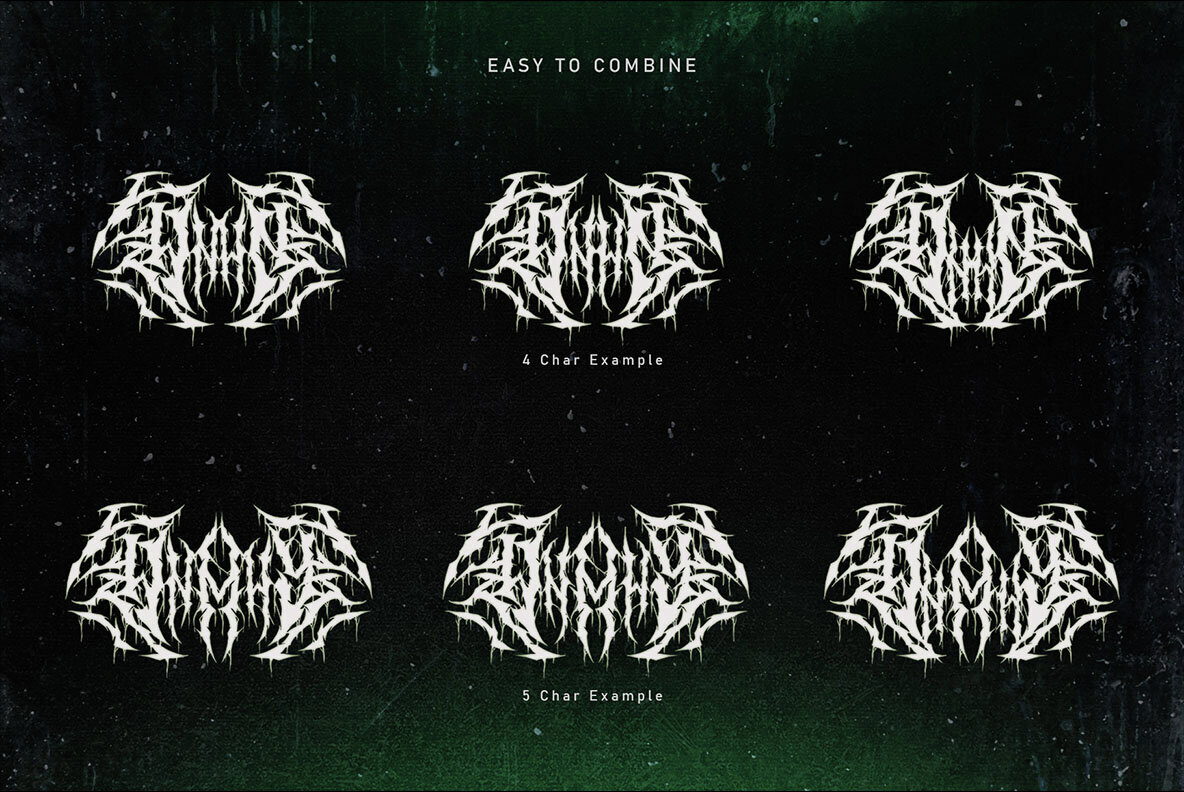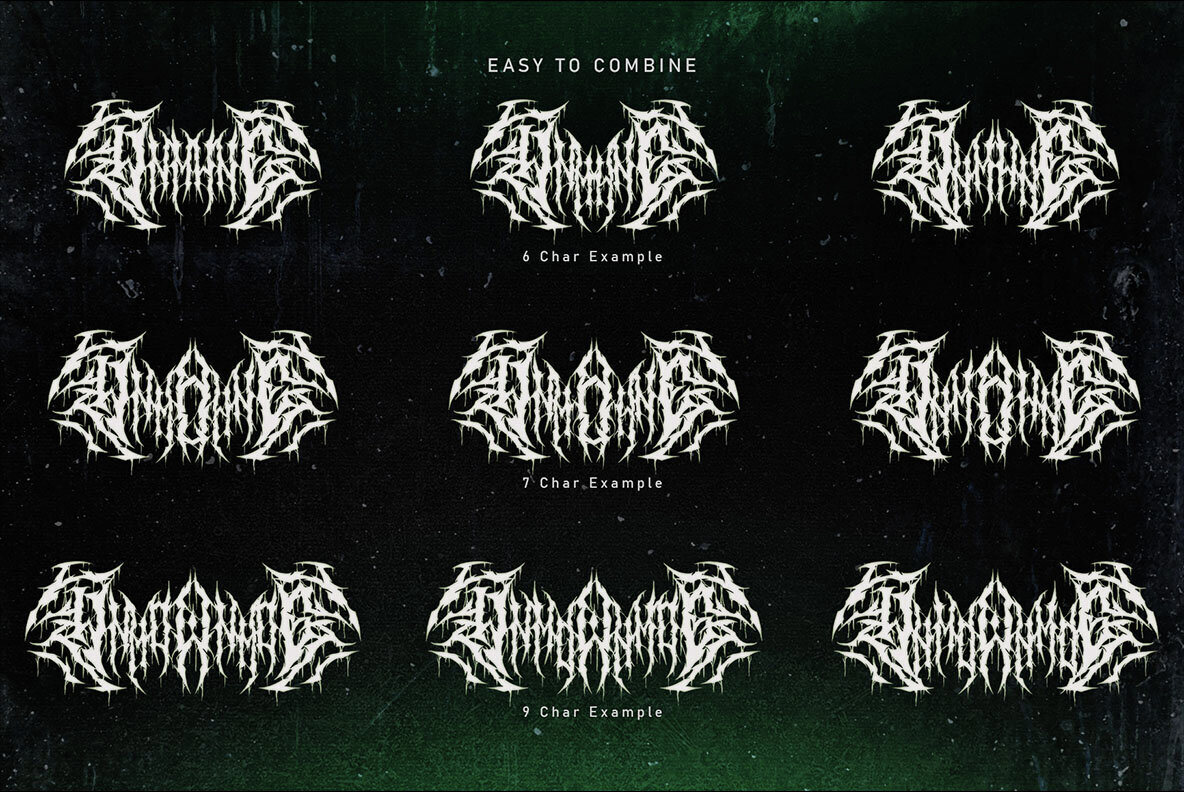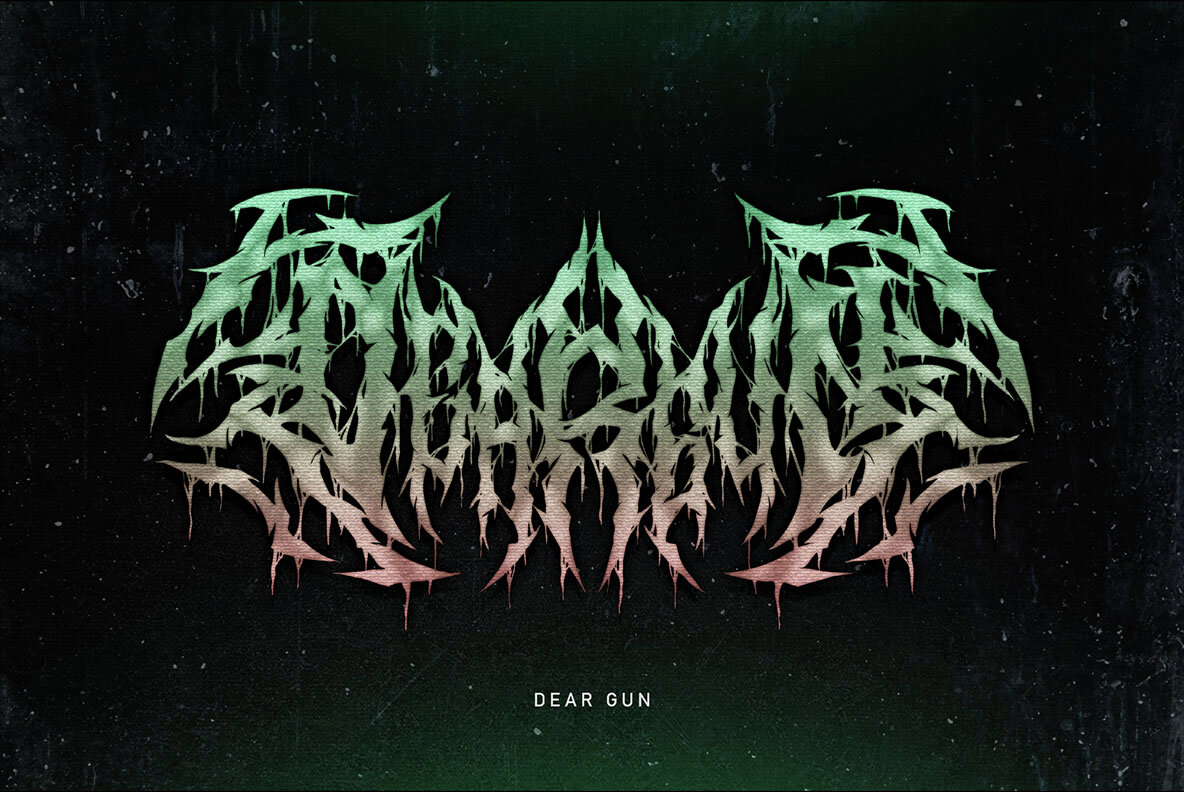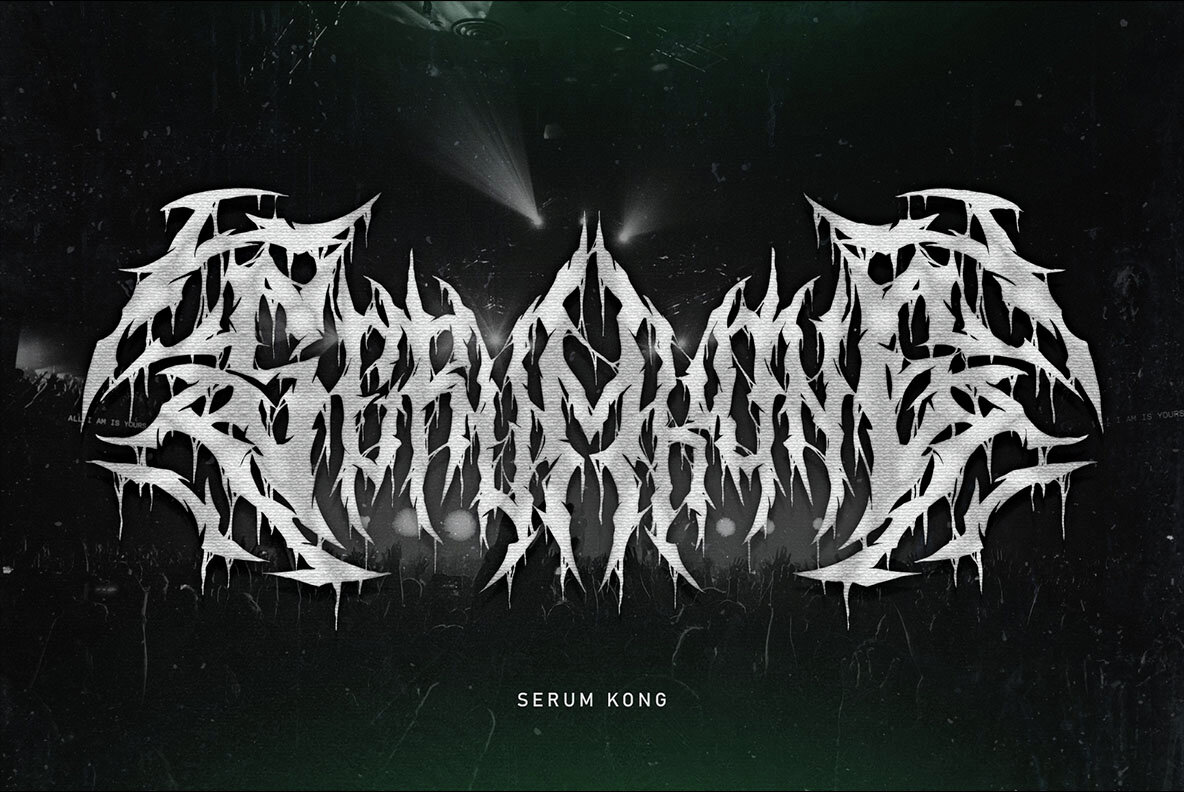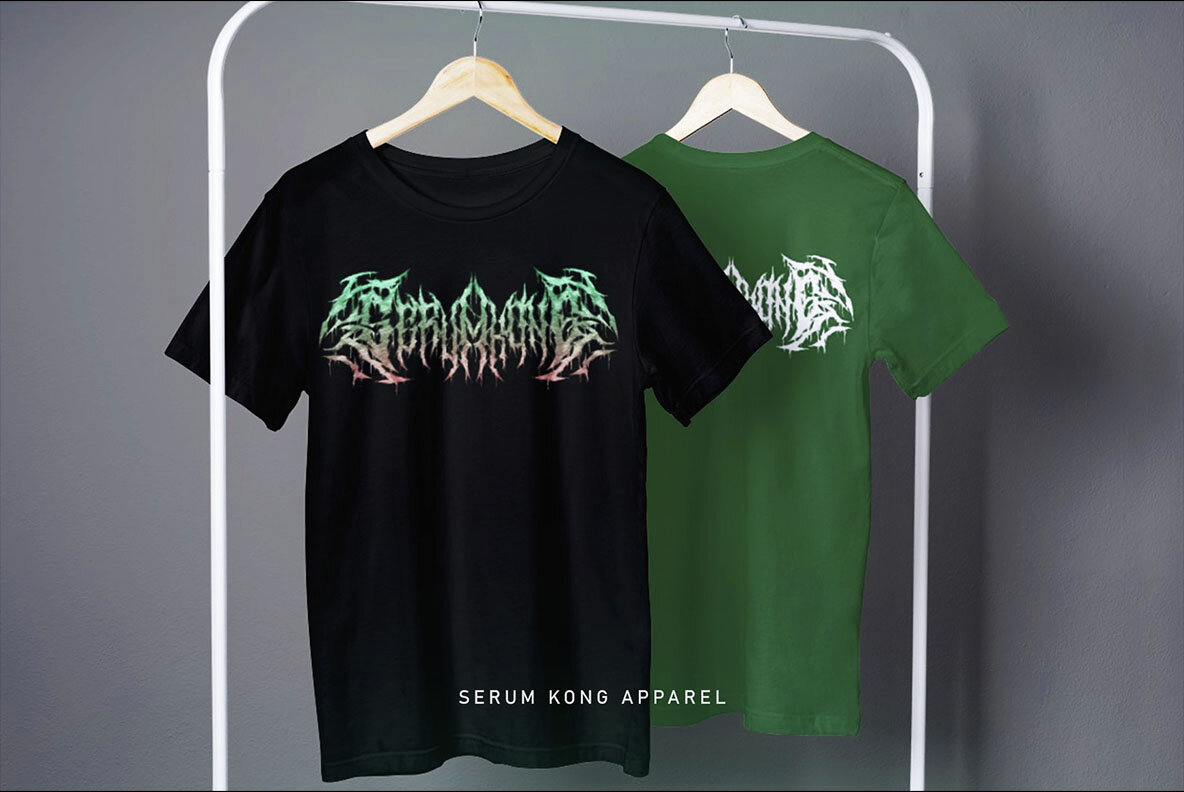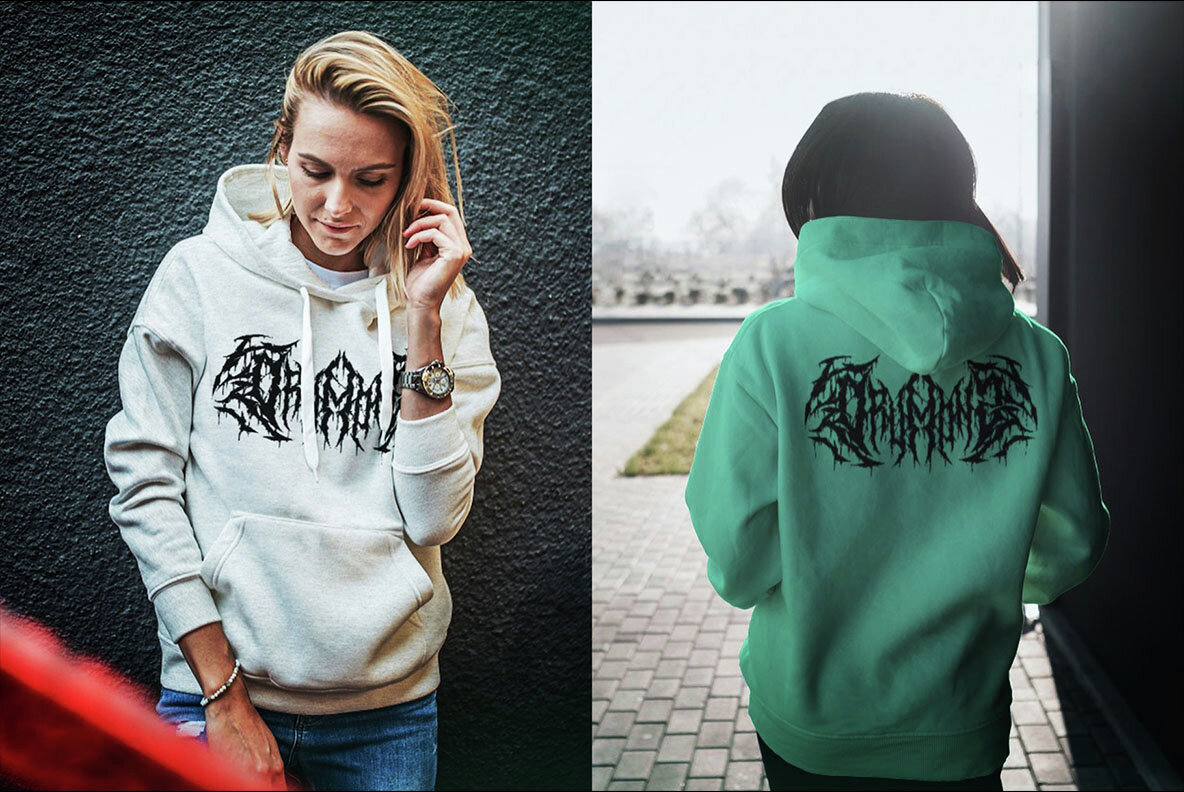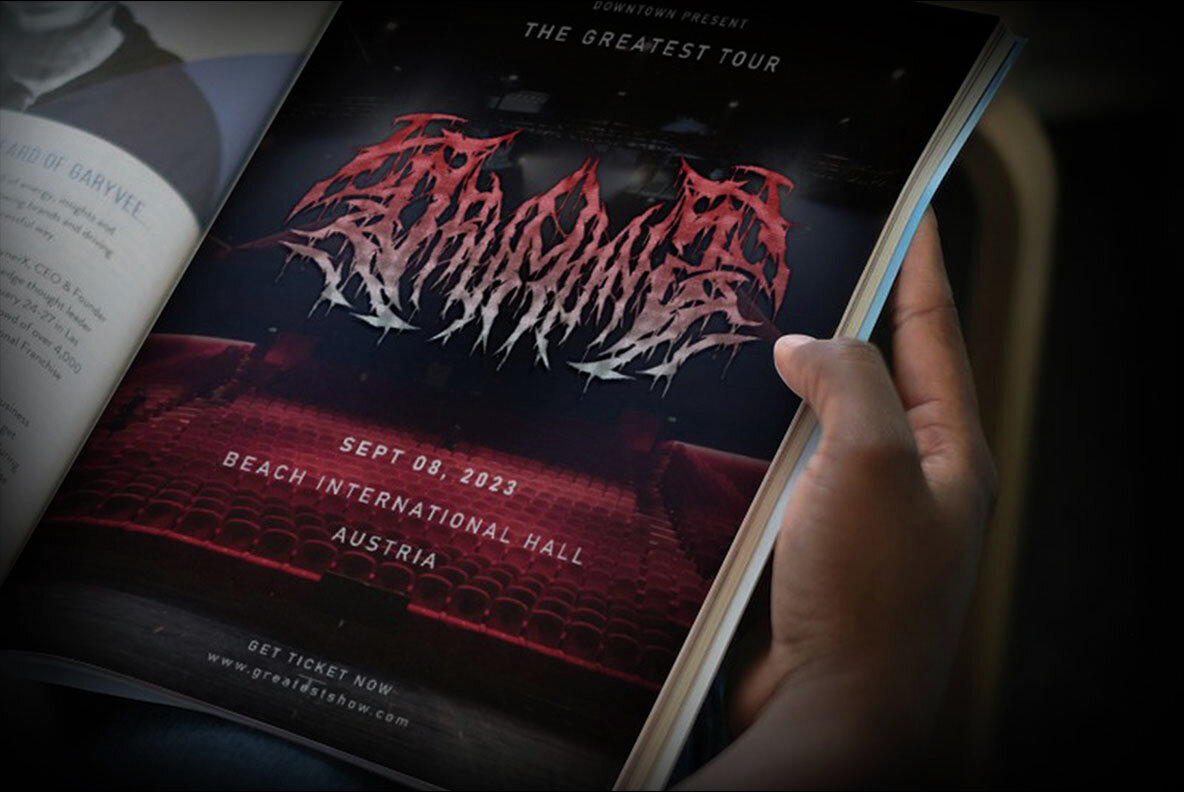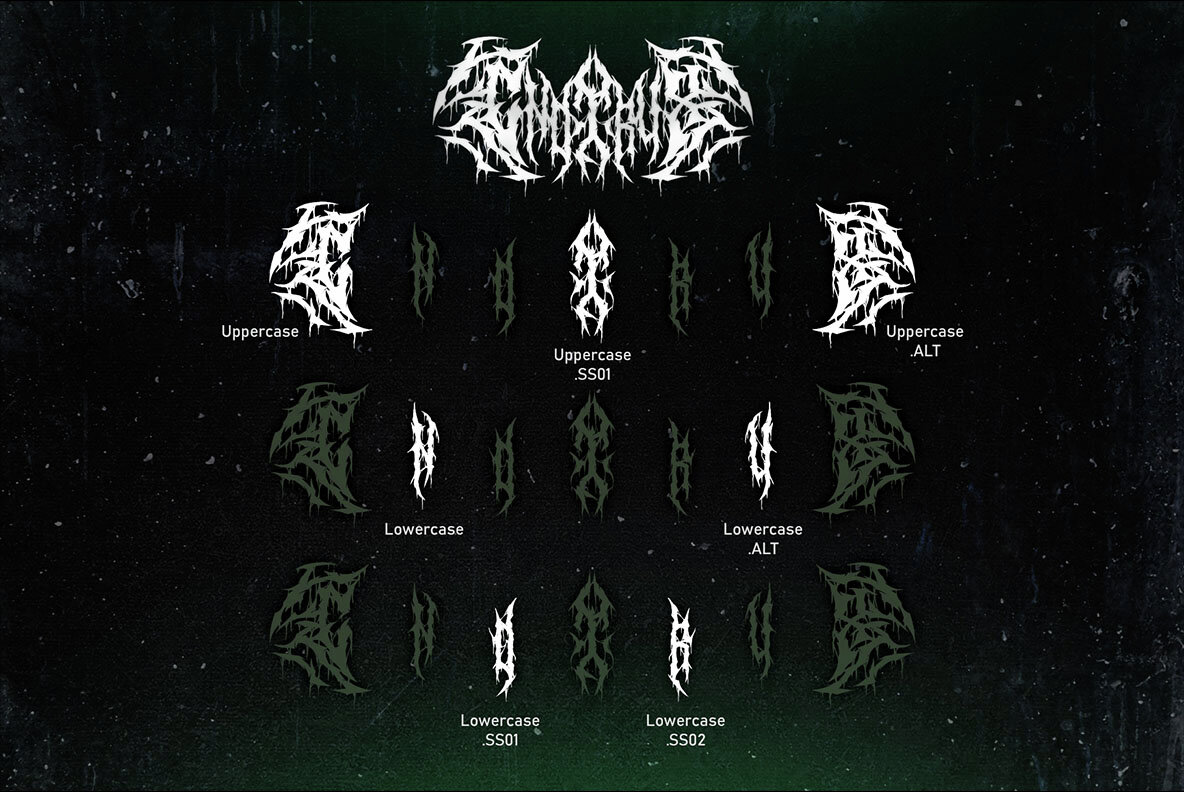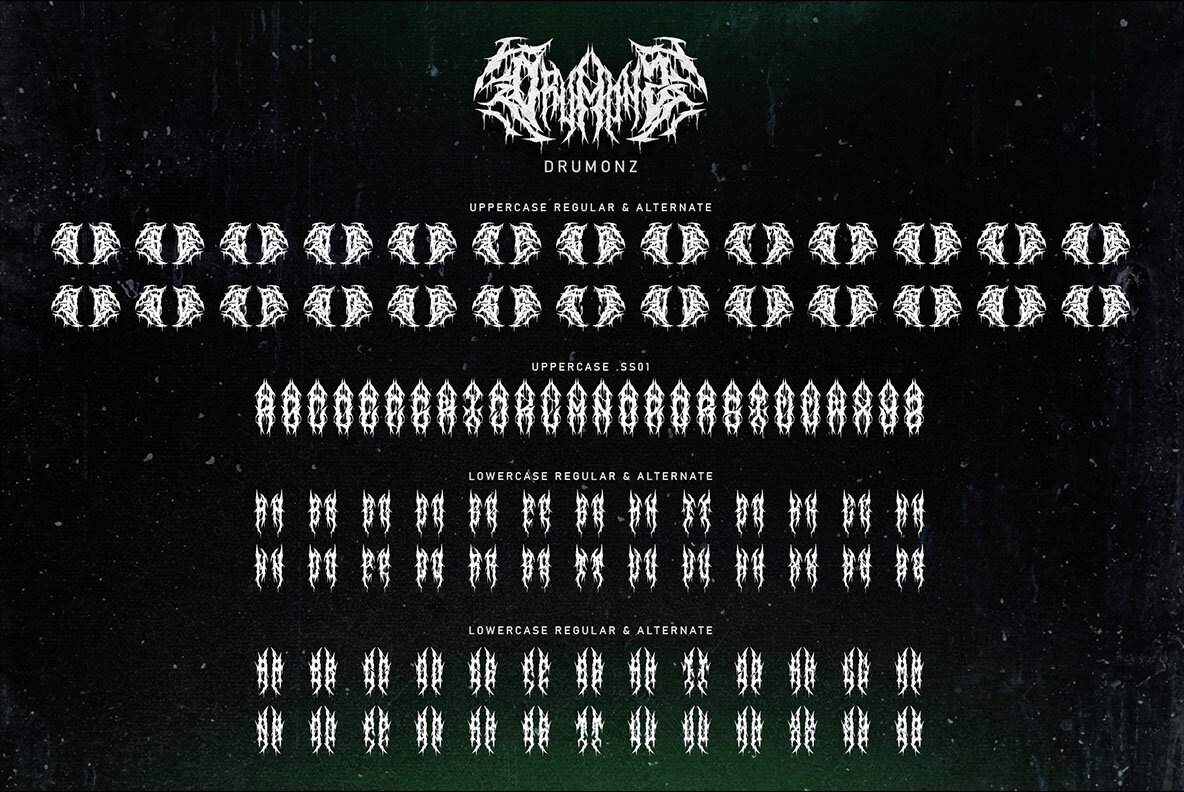
Drumonz Font
Drumonz Regular
Drumonz is a death metal font made with a touch of darkness, featuring a heavy and death metal feel to compliment your design. Drumonz is very easy to use in any variation or writing combination, also perfect for metal band logos, merchandise, clothing, apparel, or anything else that calls for a metal feel. Recomended Software to use: